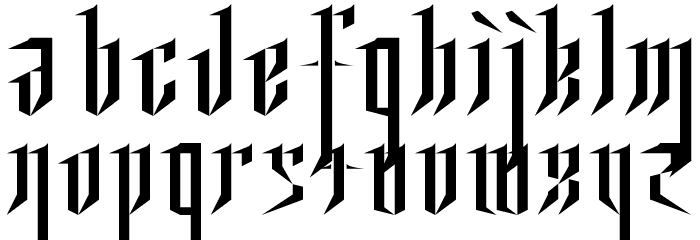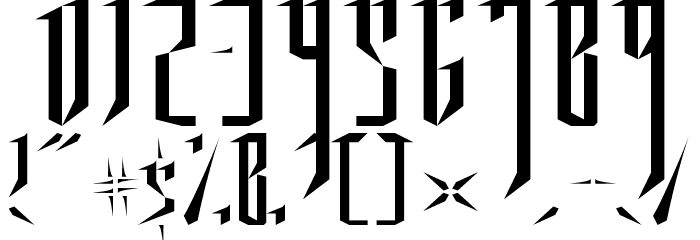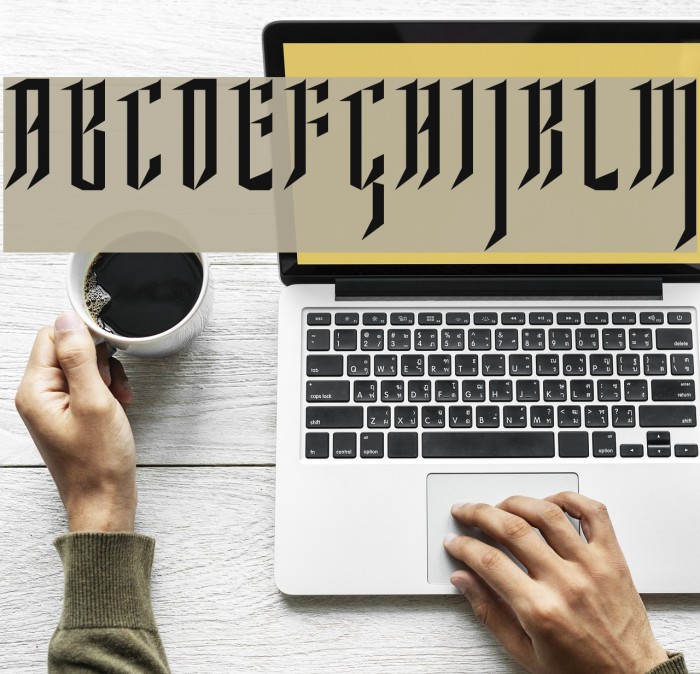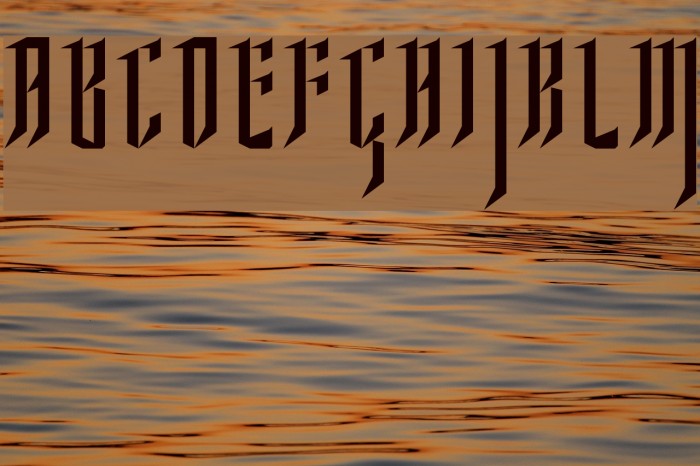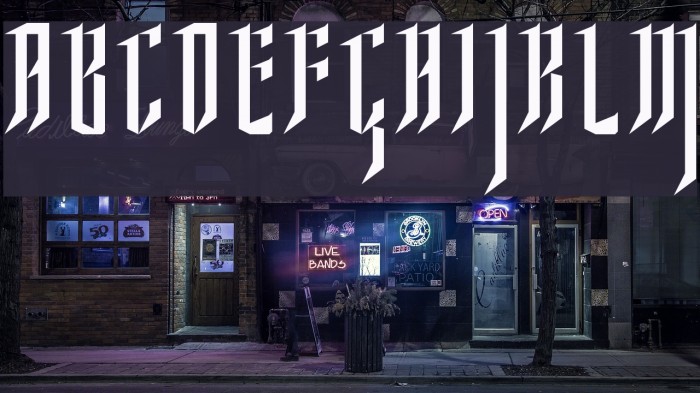
Ysgarth English Normal Font
This font features a striking and bold design with sharp, angular lines and a distinct Gothic influence. The characters are tall and narrow, with a high contrast between thick and thin strokes, giving it a dramatic and imposing appearance. The uppercase letters are particularly elongated, while the lowercase letters maintain a consistent style with slightly more curves. The numerals and special characters follow the same angular and pointed aesthetic, making the font cohesive and visually impactful. This style is reminiscent of medieval script, yet it retains a modern edge through its clean lines and geometric shapes.
A bold, angular Gothic-inspired font with high contrast and sharp lines.
- Proposed Projects: Ideal for projects requiring a dramatic and historical touch, such as book covers, posters, or branding for events with a medieval or fantasy theme.
- Category: Blackletter
- Character Spacing: Tight